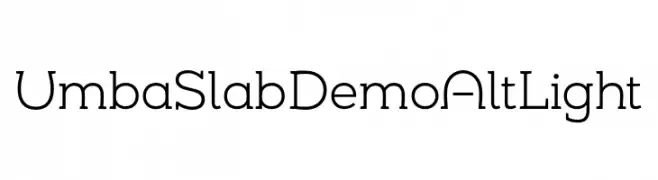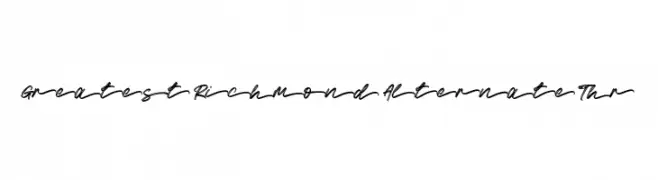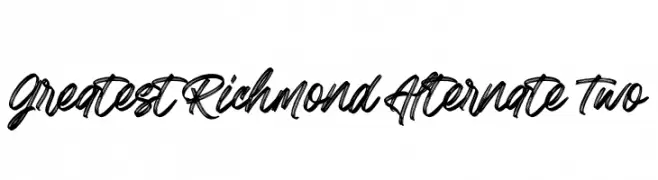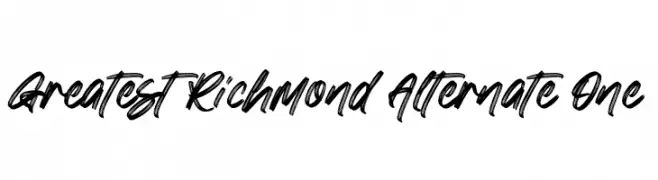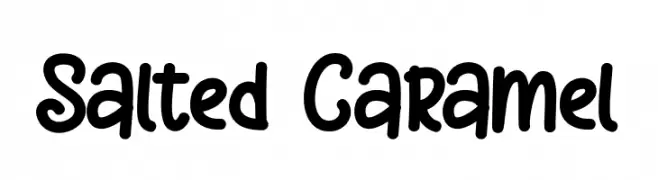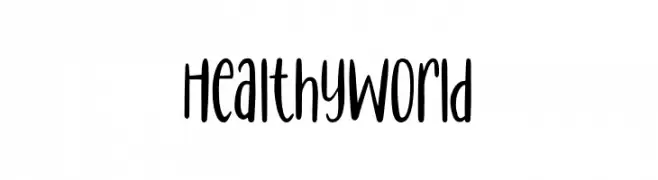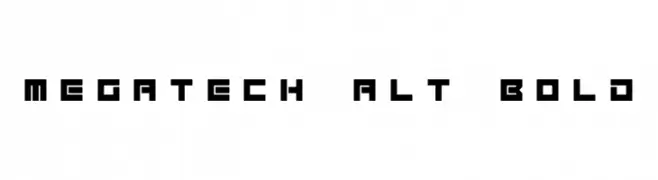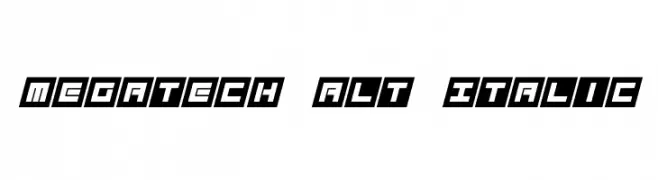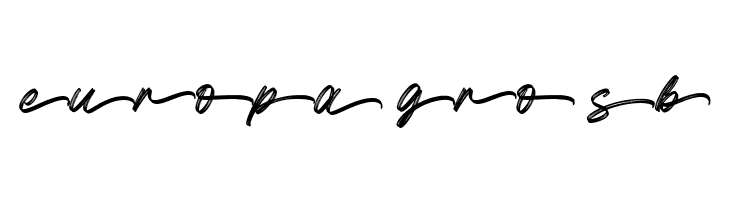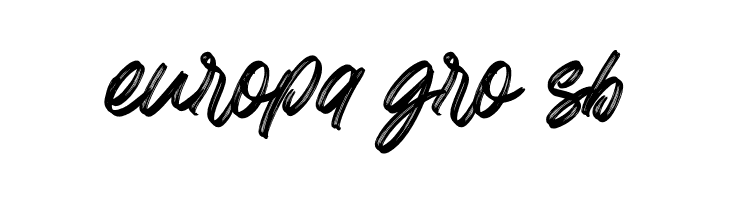
A modern, light slab serif font with subtle geometric influences and low contrast.
A bold, italic slab serif font with a modern yet classic style.
A bold, brush-style font with dynamic strokes and a hand-painted look.
A bold, dynamic script font with a hand-drawn, expressive style.
A bold, dynamic handwritten font with expressive brush-like strokes.
A playful, rounded font with bold, smooth curves and a casual, handwritten feel.
A playful, handwritten font with smooth, rounded edges and a modern, casual style.
An elegant, high-contrast script font with flowing, interconnected letters.
A bold, futuristic font with geometric shapes and a tech-inspired aesthetic.
A bold, geometric, and italic font with a futuristic style.